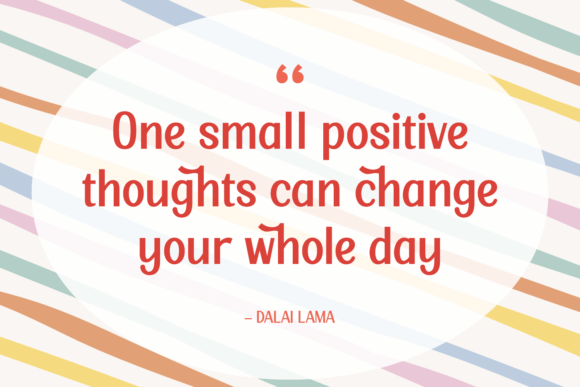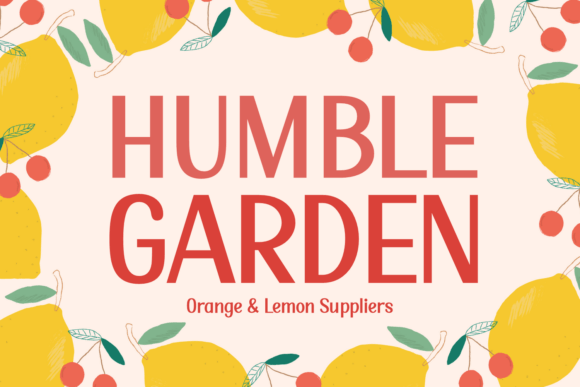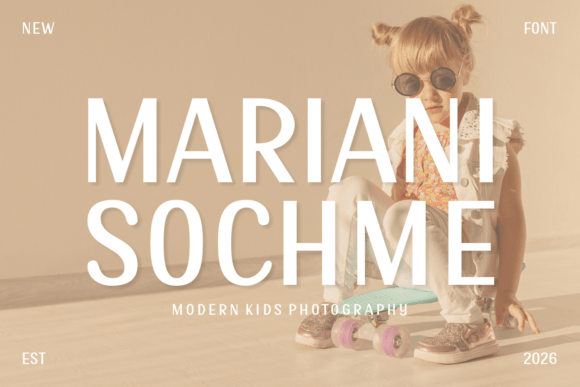
Introduction to Modern Children Font Font
Fonts play a crucial role in design, and the Modern Children Font font is a typeface that brings both character and versatility to any project. Whether you’re working on a branding project, a website, or a print design, the Modern Children Font font offers a unique style that can elevate your work.
Modern Children is a elegant sans serif typeface that masterfully blends contemporary.
Its clean geometry and strong presence make it perfect for impactful headlines, posters, album covers, magazine layout, branding, and high impact advertising Designed to deliver clarity and confidence minimalism with a distinctive edge, ideal for designers who want their work to stand out effortlessly.
Key Features of Modern Children Font Font
Why Choose Modern Children Font Font?
The Modern Children Font font is more than just a typeface – it’s a design tool that helps you communicate your message with style and clarity. Its unique character set and versatile design make it suitable for a wide range of applications, from elegant invitations to bold headlines.
With its carefully crafted letterforms and balanced proportions, the Modern Children Font font ensures readability and visual appeal across all mediums.
What makes Modern Children Font font special?
The Modern Children Font font stands out with its unique design, exceptional readability, and versatility across various design applications.